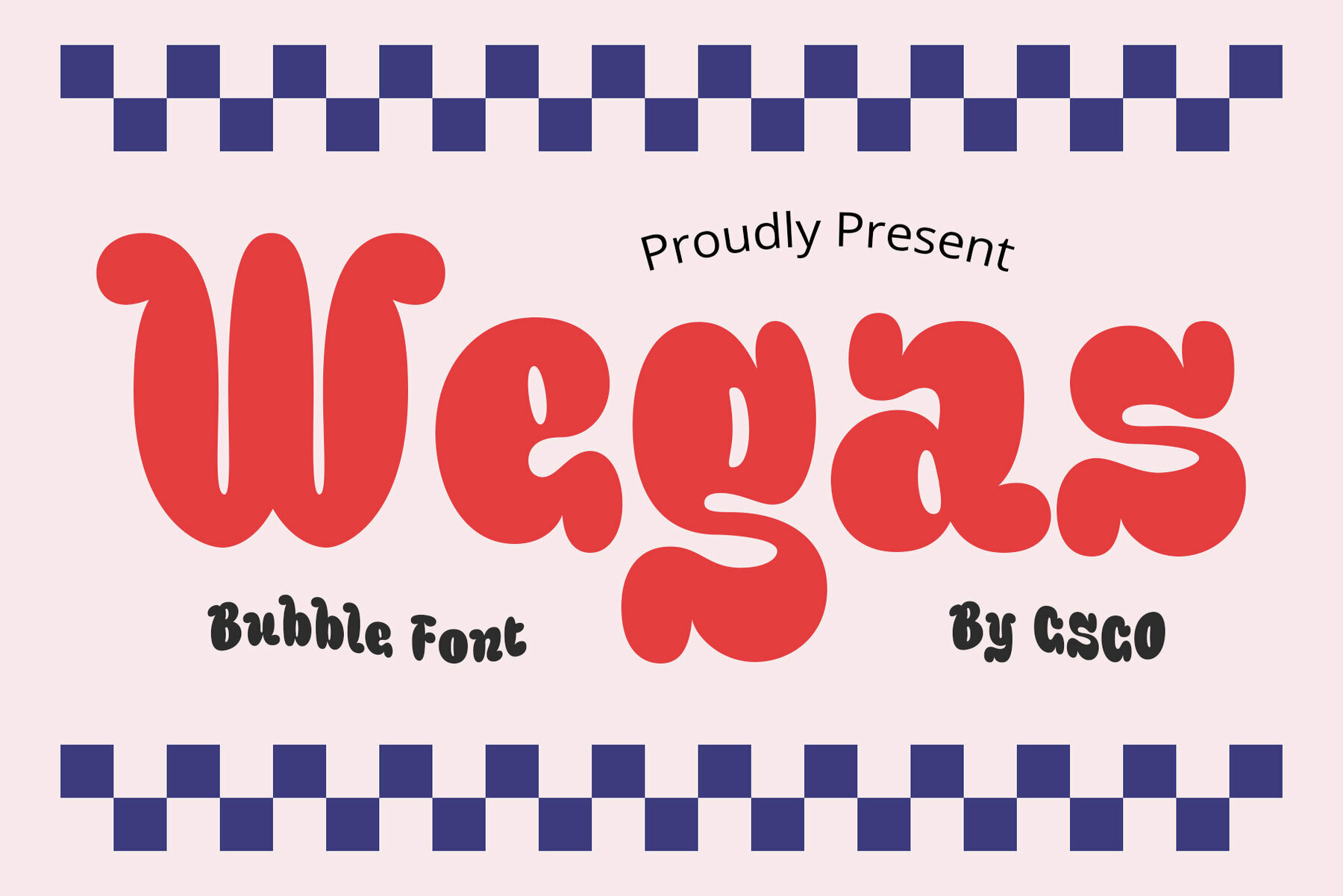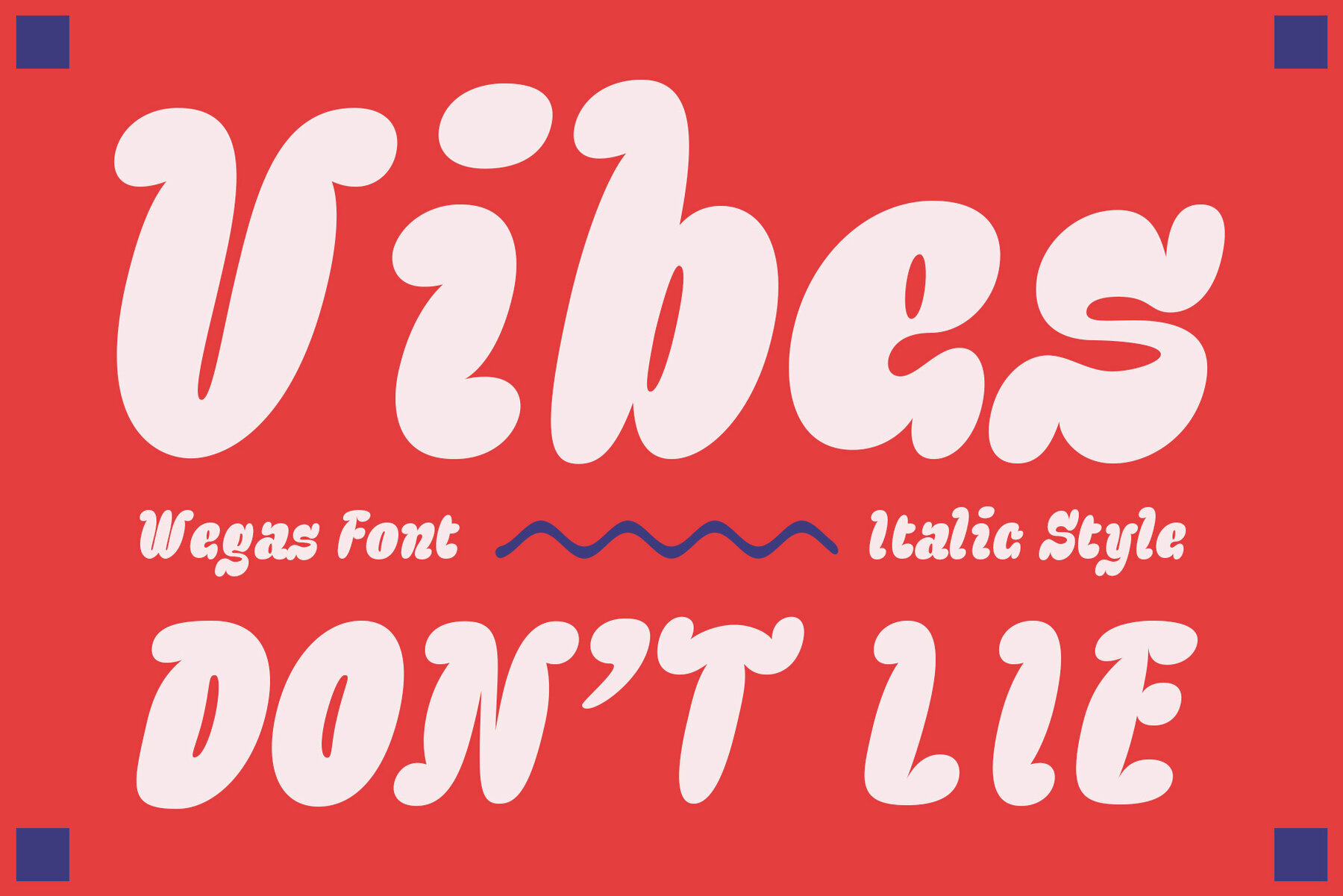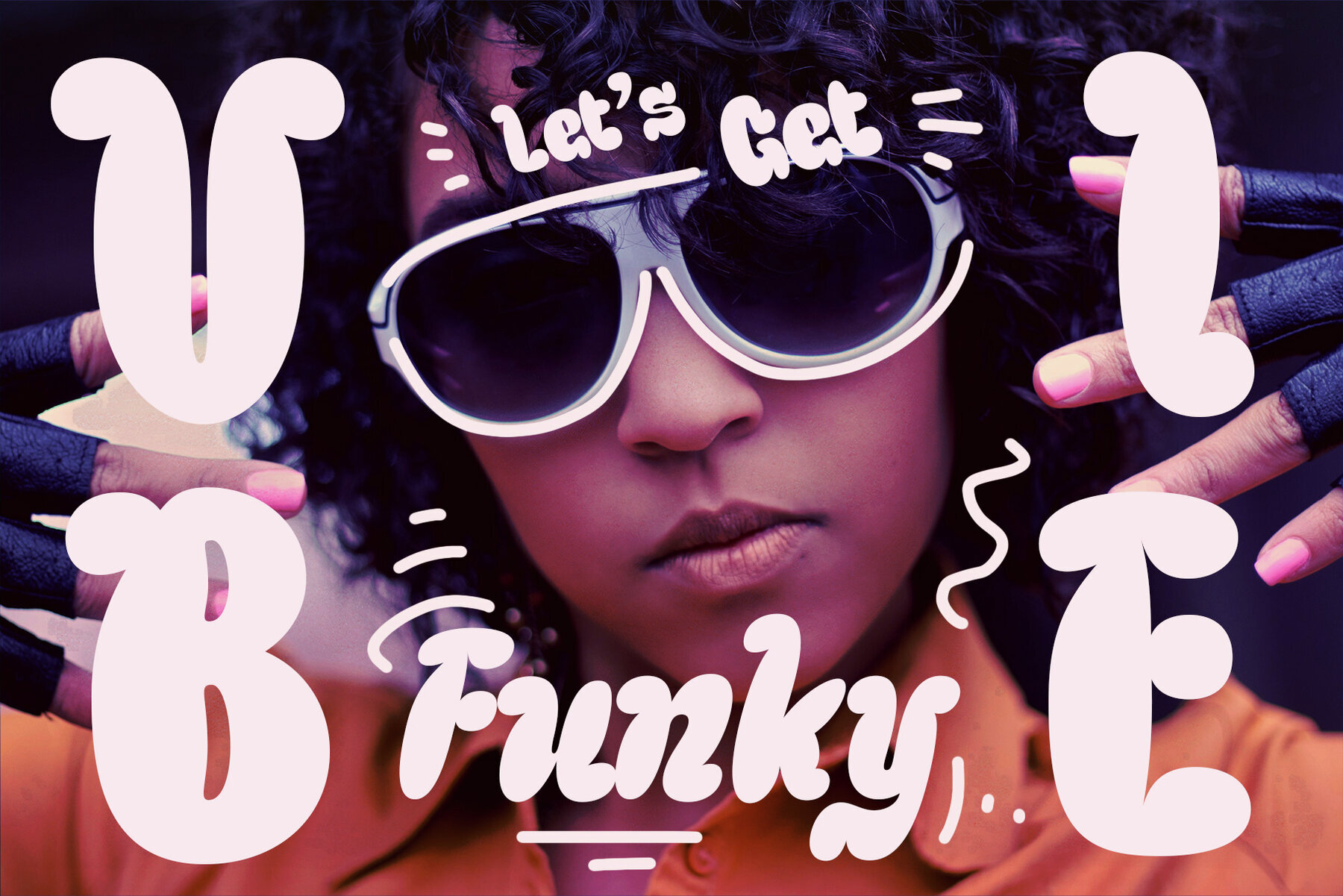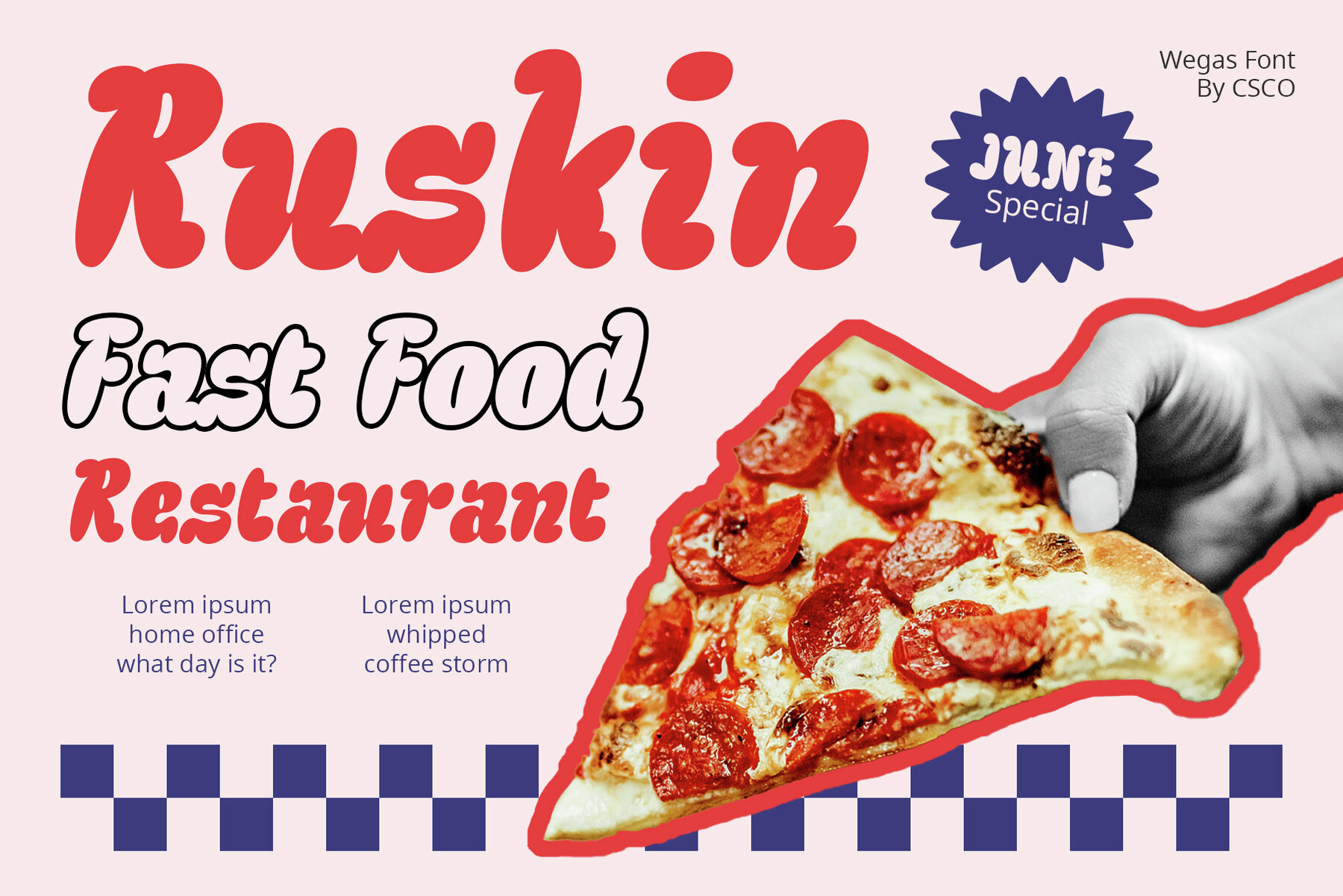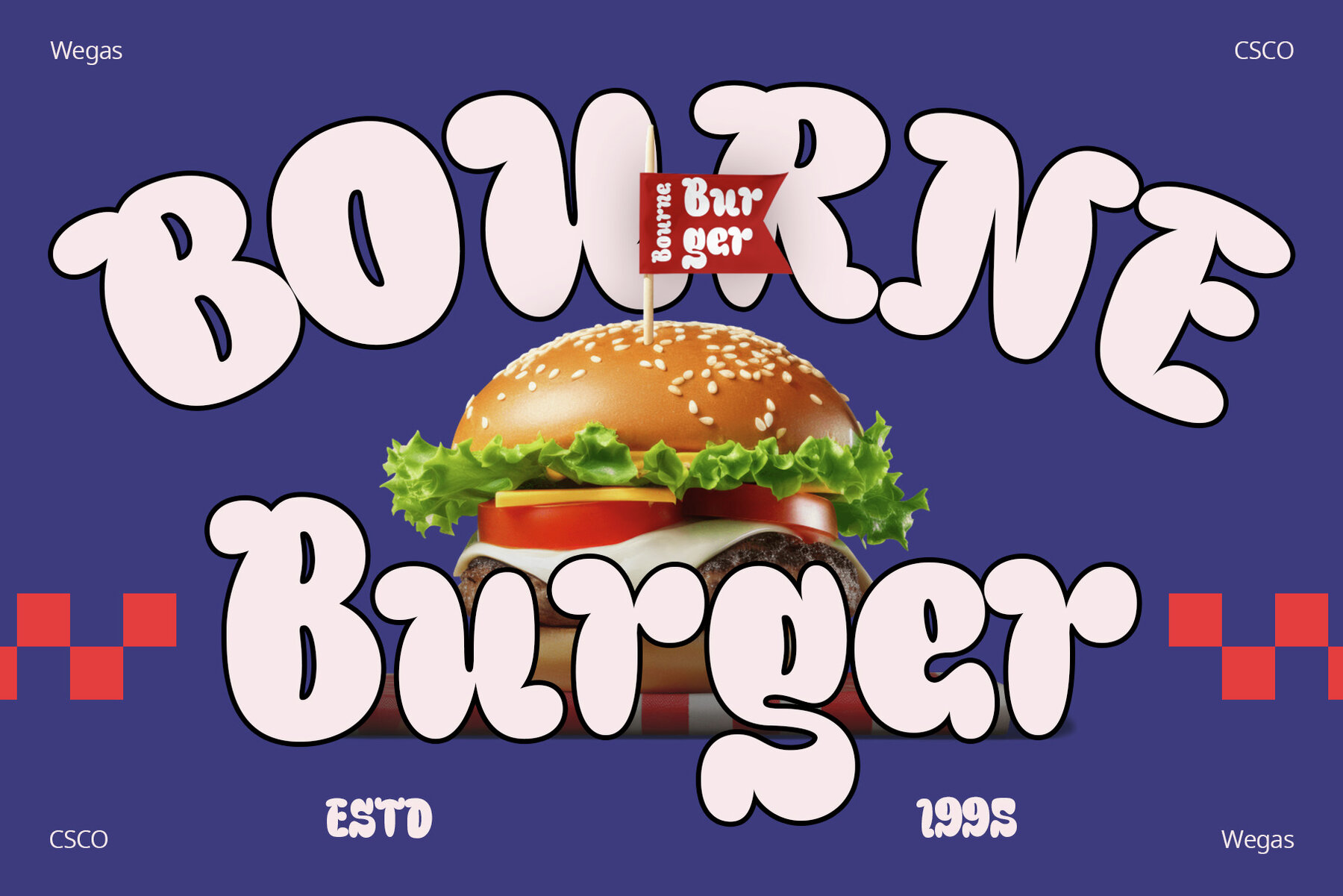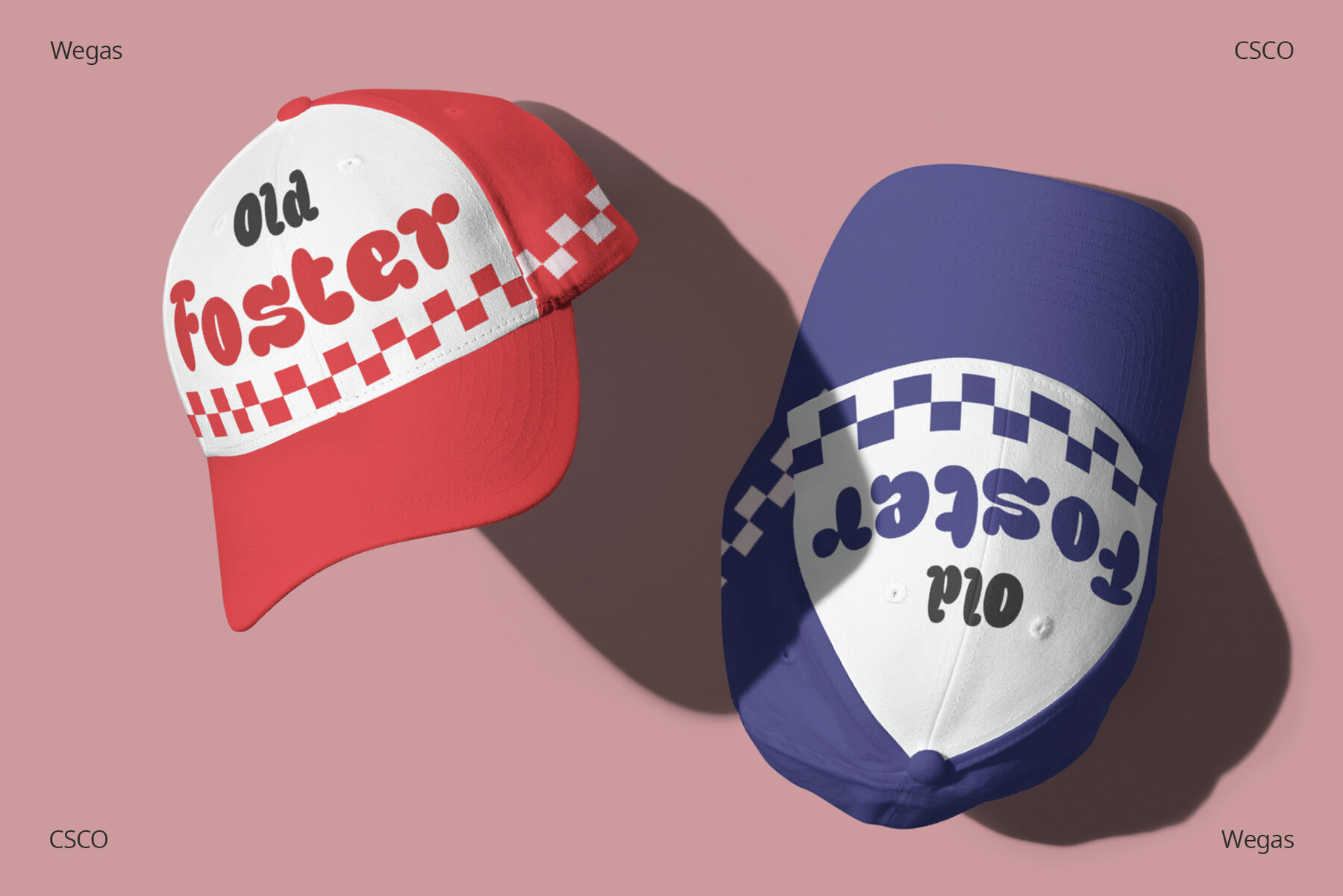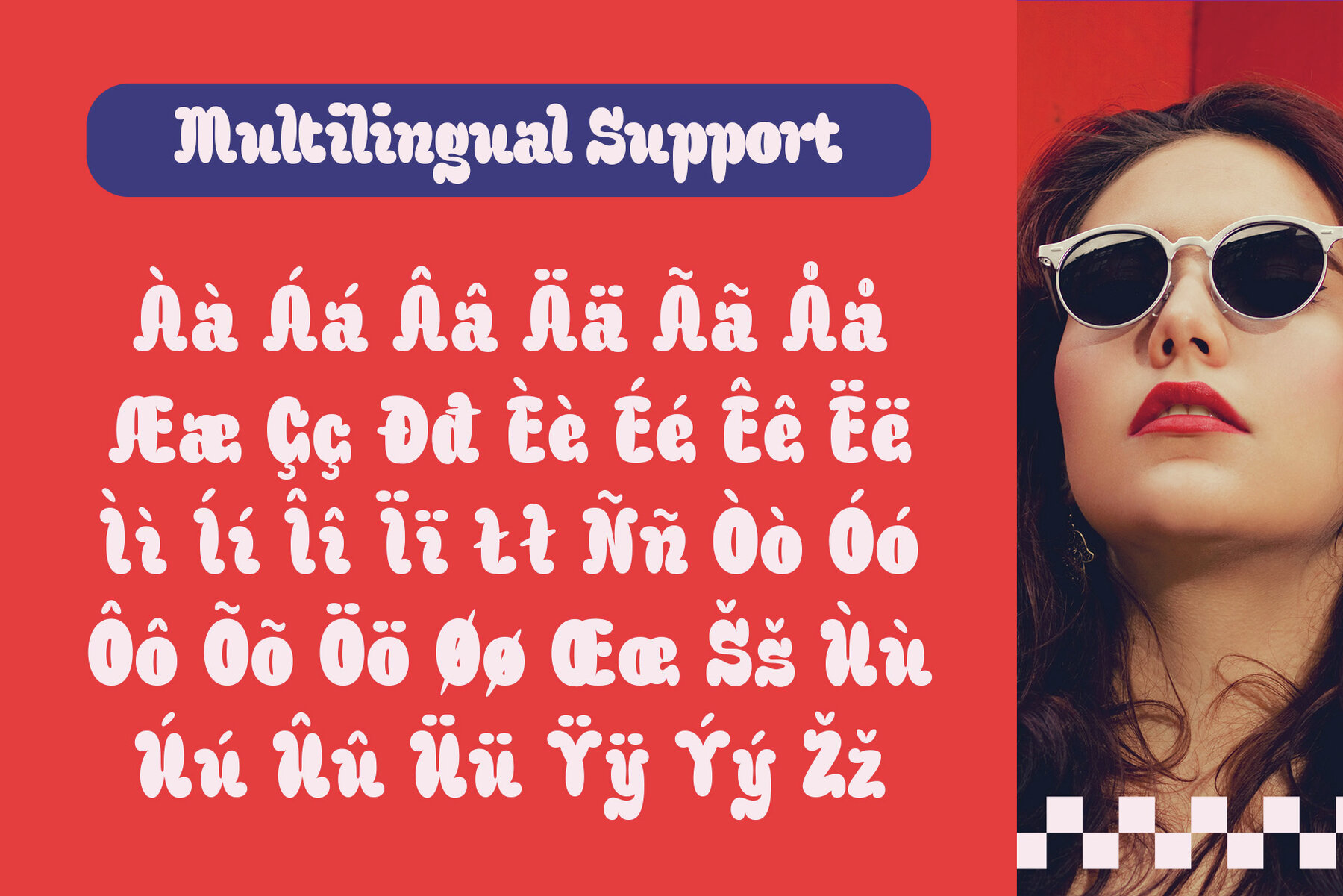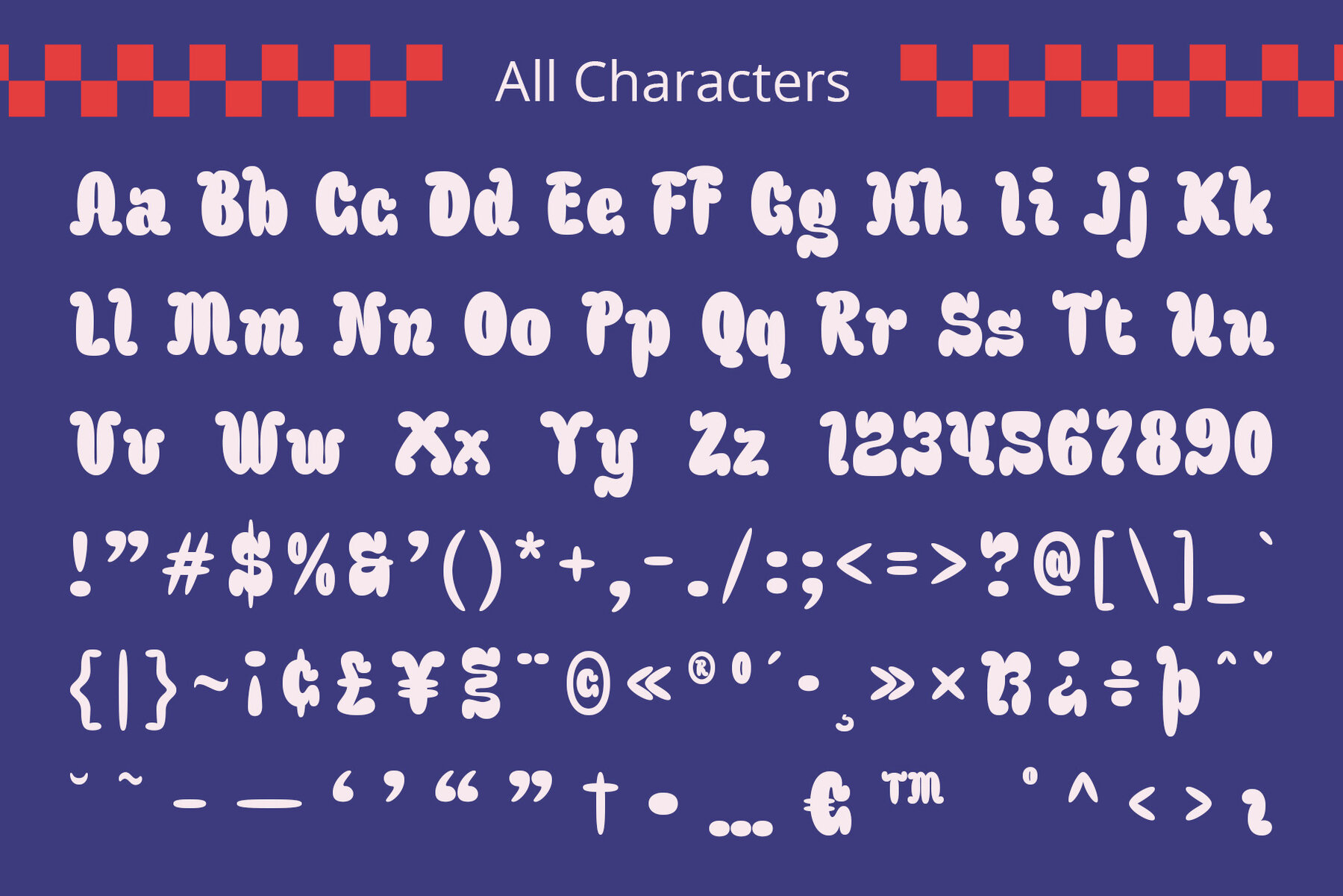
Wegas Font
Wegas – Bubble Font offers a playful and cheerful design, perfect for adding a fun touch to any project. It’s inspired by the lightness of clouds and the joy of bubbles. This font brings a fresh, airy feel to your designs, making them stand out. It’s ideal for creative projects that need a touch of whimsy. This font features rounded edges, mimicking the shape of clouds and bubbles. Its design is based on a cheerful and lively aesthetic, perfect for uplifting content. The bubbly appearance gives a sense of joy and playfulness. It’s like capturing the essence of a sunny day in a font. Wegas – Bubble Font is incredibly versatile. It works great for children’s books, party invitations, and playful branding. Its readability makes it suitable for both digital and print media. The font is a great choice for anyone looking to inject a sense of fun into their work. This font is user-friendly, ensuring accessibility for all skill levels. Its simplicity caters to a wide audience, from professional designers to hobbyists. Downloading and installing Wegas – Bubble Font is straightforward, allowing you to start creating joyful designs immediately.Introduction to Wegas – Bubble Font
Design and Inspiration
Versatility and Usage